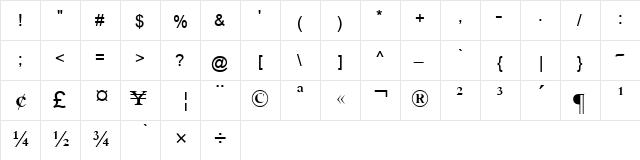
Urdu Naskh Asiatype Regular
Design Context for Urdu Naskh Asiatype Typeface
Urdu Naskh Asiatype offers clean, dependable letterforms without strong stylistic allegiance, making it a practical choice for designers who need flexibility.